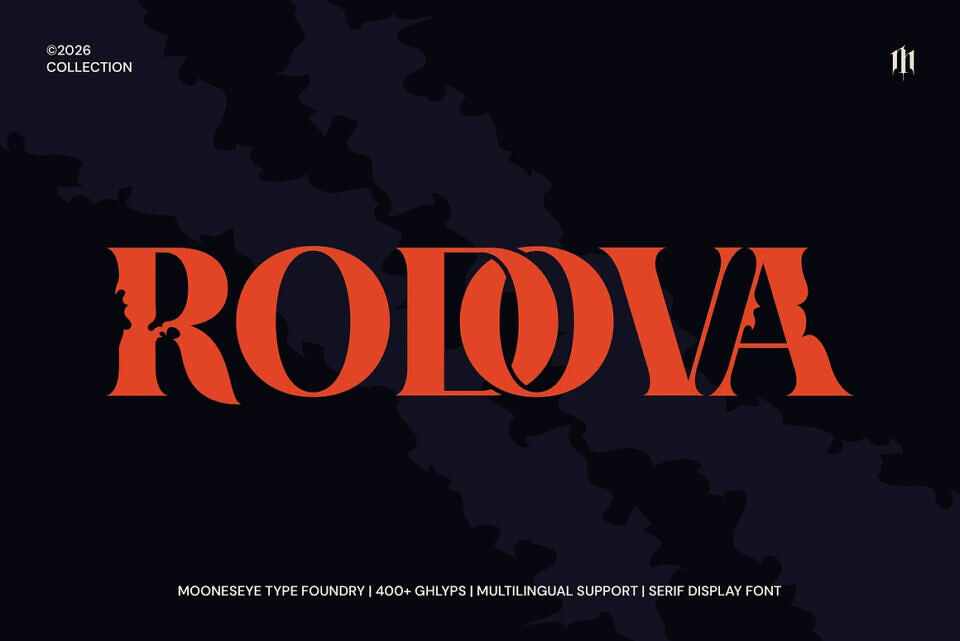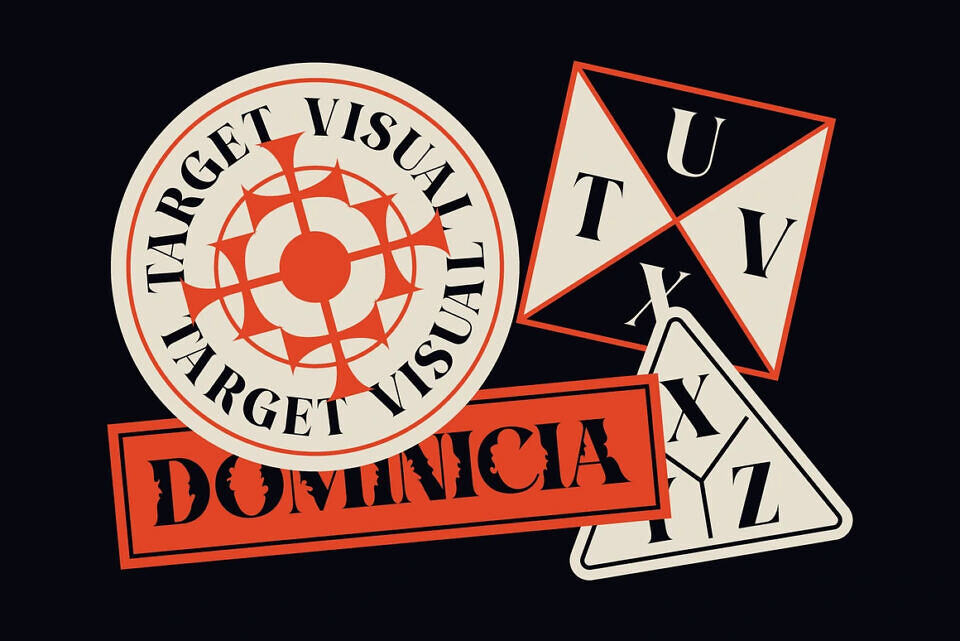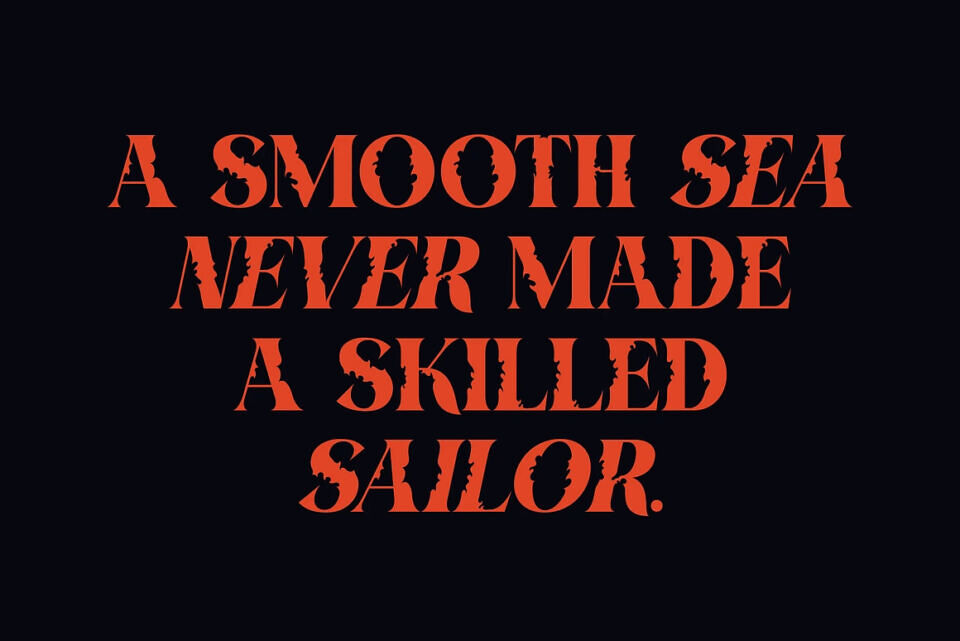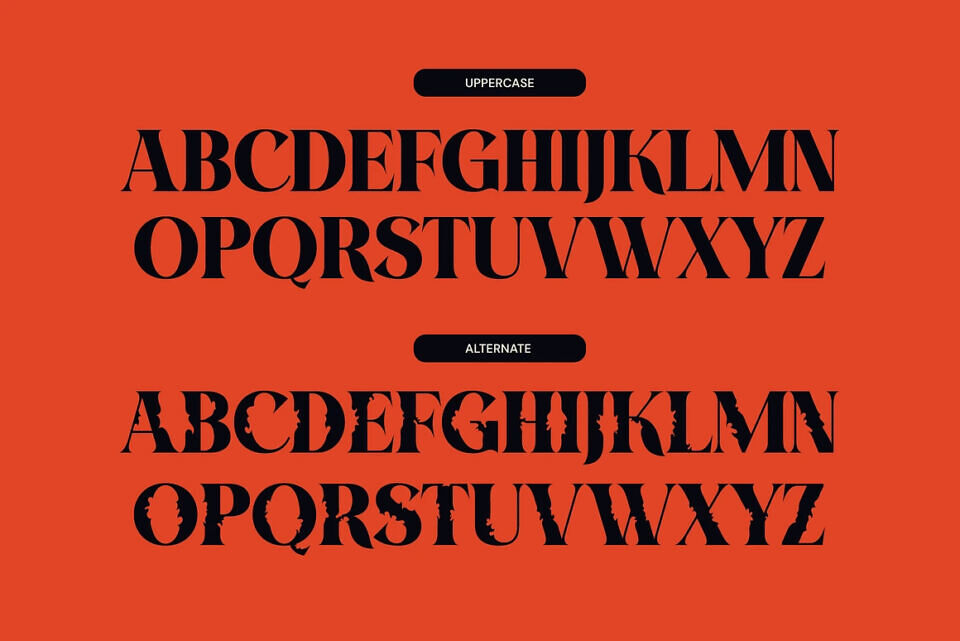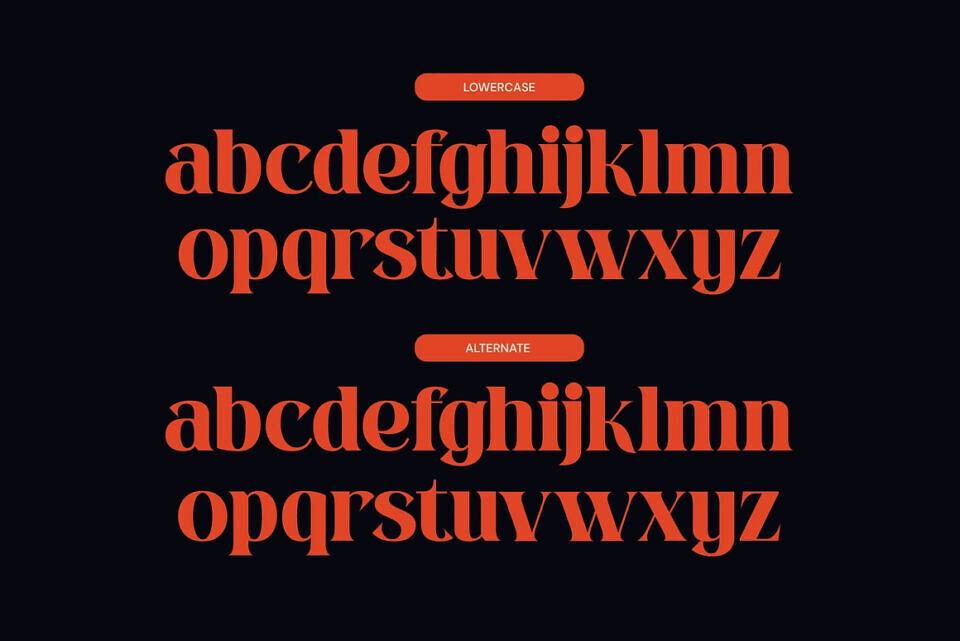
Rodova Font
Step away from the ordinary and give your designs a sharp, high-contrast edge with Rodova. This isn’t just another serif; it’s a dual-identity powerhouse designed to transition seamlessly from high-end luxury to underground grit.
Imagine your next project—whether it’s a sleek fashion magazine masthead or a raw, avant-garde streetwear logo. Rodova breathes life into your headlines with its dramatic thick-and-thin strokes and unique “thorned” alternates. It’s fluid, it’s sharp, and it’s meticulously crafted to make every word look like a custom piece of art.